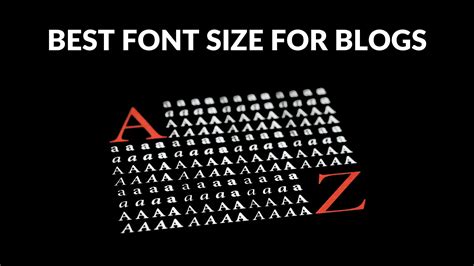
Newsletter Font Size Guide
Hey guys! Ever wondered what the perfect font size is for your newsletter? It’s a question that pops up more often than you might think, and for good reason! Getting this right can make a huge difference in how your readers engage with your content. Too small, and people will strain their eyes and bounce. Too big, and it might look unprofessional or cramp your layout. Let’s dive deep and figure out the sweet spot for your email campaigns. We’ll explore the common recommendations, the factors that influence this decision, and how to test what works best for your audience.
Understanding the Basics: Why Font Size Matters
Alright, let’s get down to brass tacks. Why is font size such a big deal in your newsletters, anyway? Think about it from your reader’s perspective. They’re likely scrolling through their inbox on various devices – some on a big desktop monitor, others on a tiny phone screen. If your text is too small, it’s an instant turn-off. It screams, “I didn’t put much thought into this,” and nobody wants to feel like an afterthought. Good typography, and specifically the right font size, is crucial for readability . It’s not just about aesthetics; it’s about making your message accessible and easy to digest. A well-chosen font size ensures that your carefully crafted content, your compelling calls to action, and your brand message are actually seen and understood . It directly impacts user experience (UX), which, in turn, affects your open rates, click-through rates, and overall engagement. Imagine spending hours writing an amazing article, only for it to be unreadable because the font is minuscule. Frustrating, right? That’s why we need to nail this down. For starters, let’s talk about the general consensus in the email marketing world.
So, what are these magic numbers everyone talks about? When it comes to newsletter font size , most experts and email marketing platforms generally recommend a body text size of 16 pixels (px) . Why 16px? Well, it’s become the standard for a reason. It’s a size that offers a good balance between readability on most screens and efficient use of space. It’s large enough to be easily read on mobile devices without pinching or zooming, and it looks perfectly fine on desktop as well. For headings, you’ll want something larger, obviously. A good range for headings in newsletters would be anywhere from 18px to 24px , depending on the hierarchy you want to establish. For example, your main H1 or title could be at the higher end, while H2s and H3s might be slightly smaller. Remember, headings are there to break up text and guide the reader’s eye. They need to stand out! Now, some might argue that 14px is acceptable, especially if you have a lot of content. However, 16px body font is almost universally accepted as the safest and most effective choice for ensuring your message gets across without causing eye strain. It’s a size that most browsers render consistently, minimizing the risk of display issues across different email clients. So, if you’re ever in doubt, stick with 16px for your body text .
Factors Influencing Your Font Size Choice
While 16px is a solid baseline, guys, it’s not the only factor to consider. Several things can influence whether you should stick with 16px, go slightly larger, or perhaps even experiment. Mobile responsiveness is king here. Most people today check emails on their phones. If your font looks great on a desktop but becomes a blurry mess on a mobile screen, you’ve got a problem. Always prioritize how your newsletter looks on smaller screens. Next up, consider your audience demographics . Are you targeting a younger crowd who might be more accustomed to smaller text, or are you aiming for an older demographic that might benefit from larger, more accessible text? While 16px is generally good for all, if you know your audience has a higher prevalence of visual impairments or is generally older, bumping it up to 17px or 18px might be a thoughtful move. Then there’s the content itself . Are you sending a quick update with short paragraphs, or a lengthy, in-depth article? If it’s the latter, ensuring that 16px font is perfectly legible is paramount. If your content is very image-heavy with minimal text, you might have a bit more flexibility, but readability should always be the priority. Don’t forget about the font family you choose! Some fonts are naturally more condensed or have smaller x-heights, making them appear smaller even at the same pixel size. Others are more open and airy. A font like Arial or Open Sans at 16px will likely feel larger and more readable than, say, a condensed serif font at the same size. Testing is key, so keep these factors in mind as you design!
Testing and Optimization: Finding Your Sweet Spot
So, you’ve got the recommended sizes, and you’re considering the influencing factors. What’s the next step? Testing, testing, and more testing! This is where you truly find your newsletter’s sweet spot. Don’t just guess; get data. The best way to do this is through A/B testing . Create two versions of your newsletter. Keep everything else the same – the subject line, the content, the images, the call to action – but change the body font size in one version. For example, send version A with 16px body text and version B with 17px body text. Then, send these versions to a segment of your email list. Track which version gets a higher click-through rate or a better conversion rate. Repeat this process with different font sizes or even different fonts. Tools within your email marketing platform (like Mailchimp, Constant Contact, HubSpot, etc.) often have A/B testing features built-in, making this process relatively straightforward. Another crucial aspect of testing is rendering . Use tools like Litmus or Email on Acid to see how your newsletter looks across a multitude of email clients and devices. Ensure your chosen font size is legible everywhere. Pay close attention to how it renders on different operating systems and email apps. Remember, consistency is key. While testing helps you optimize, ensure the final font size you choose is consistently applied throughout your newsletter for a professional and cohesive look. Don’t be afraid to experiment a little, but always ground your decisions in the data you gather and the user experience you aim to provide. Ultimately, the goal is to make it as easy as possible for your subscribers to read and engage with your content.
Beyond Body Text: Headings and Other Elements
We’ve talked a lot about body text font size , but what about those other crucial elements in your newsletter, guys? Let’s not forget about headings ! As mentioned, headings are your signposts. They break up long blocks of text, making your newsletter scannable and easier to navigate. For your main newsletter title (often an H1), something around 22px to 24px usually works well. This is your big, bold statement. For subheadings (H2s and H3s), you can go a bit smaller, perhaps 18px to 20px . The key is contrast. Your headings need to be noticeably larger than your body text to draw the eye, but not so large that they overpower the content. Think about the hierarchy. The most important information should have the largest heading. Now, what about captions for images or footer text ? These are often smaller. For image captions, 14px is usually sufficient, as it’s supplementary information. For your footer, where you typically have legal disclaimers, unsubscribe links, and contact information, 12px or 14px is common. It’s important that this text is still legible, but it doesn’t need to be as prominent as your main content. The goal is to provide necessary information without cluttering the design. Remember, all these sizes should work harmoniously with your chosen font family and overall brand identity. Ensure there’s a clear visual distinction between different text elements, guiding the reader smoothly from one section to the next. It’s all about creating a balanced and user-friendly reading experience.
Common Pitfalls to Avoid
Alright, let’s talk about some common mistakes people make when choosing font sizes for newsletters . The biggest one, hands down, is going too small. We touched on this, but it bears repeating. Thinking you can fit more content by shrinking the font is a false economy. It just leads to readers abandoning your email. Another pitfall is inconsistency . Using 16px for one paragraph, 14px for another, and then 18px for a subheading without clear hierarchy looks messy and unprofessional. Stick to a defined typographic scale. Some folks also fall into the trap of ignoring mobile users . They design solely for their desktop screen, forgetting that the majority of emails are opened on mobile. Always preview and test on a mobile device. Furthermore, overusing large font sizes can be just as bad as using too small. If everything is huge, nothing stands out, and it can make your newsletter feel cluttered or overly informal. Finally, don’t forget to consider the line height (or leading) . Even with the perfect font size, if your lines are too close together, the text becomes hard to read. Aim for a line height of about 1.4 to 1.6 times your font size (e.g., for 16px text, a line height of 22px to 26px is often good). Avoiding these common errors will set you up for success.
Conclusion: Readability is Key!
So, to wrap things up, guys, the best font size for a newsletter typically boils down to 16 pixels for body text . This provides excellent readability across most devices and email clients. For headings, aim for a clear hierarchy using sizes between 18px and 24px , and keep smaller elements like captions and footers legible but less prominent (around 12px to 14px ). But remember, the absolute best size is the one that works for your specific audience and content. Always prioritize readability and user experience . Use A/B testing and cross-device previews to fine-tune your choices. By paying attention to your font size, you’re not just making your newsletter look good; you’re making it work better, ensuring your message resonates and drives the engagement you’re aiming for. Happy designing!